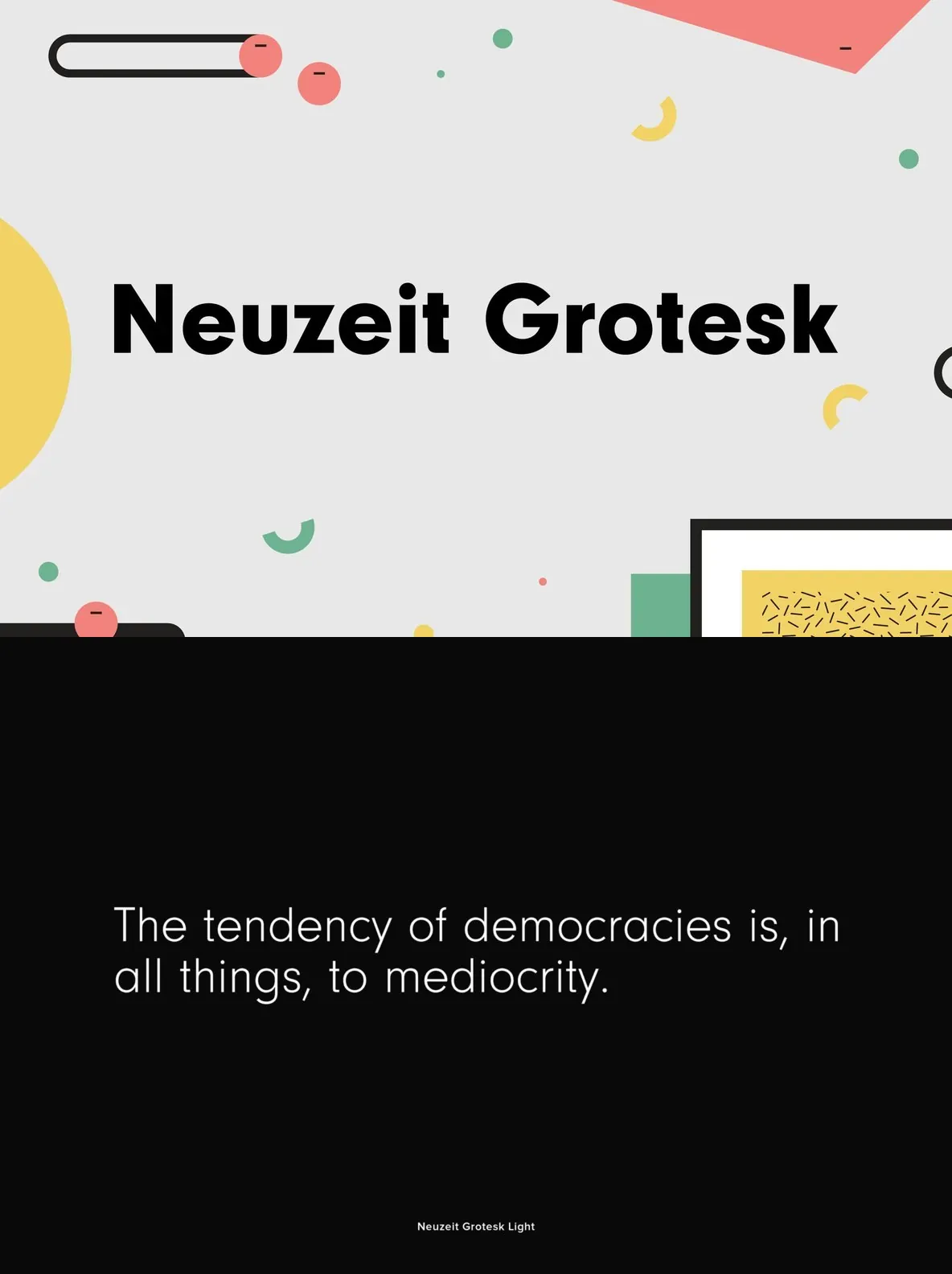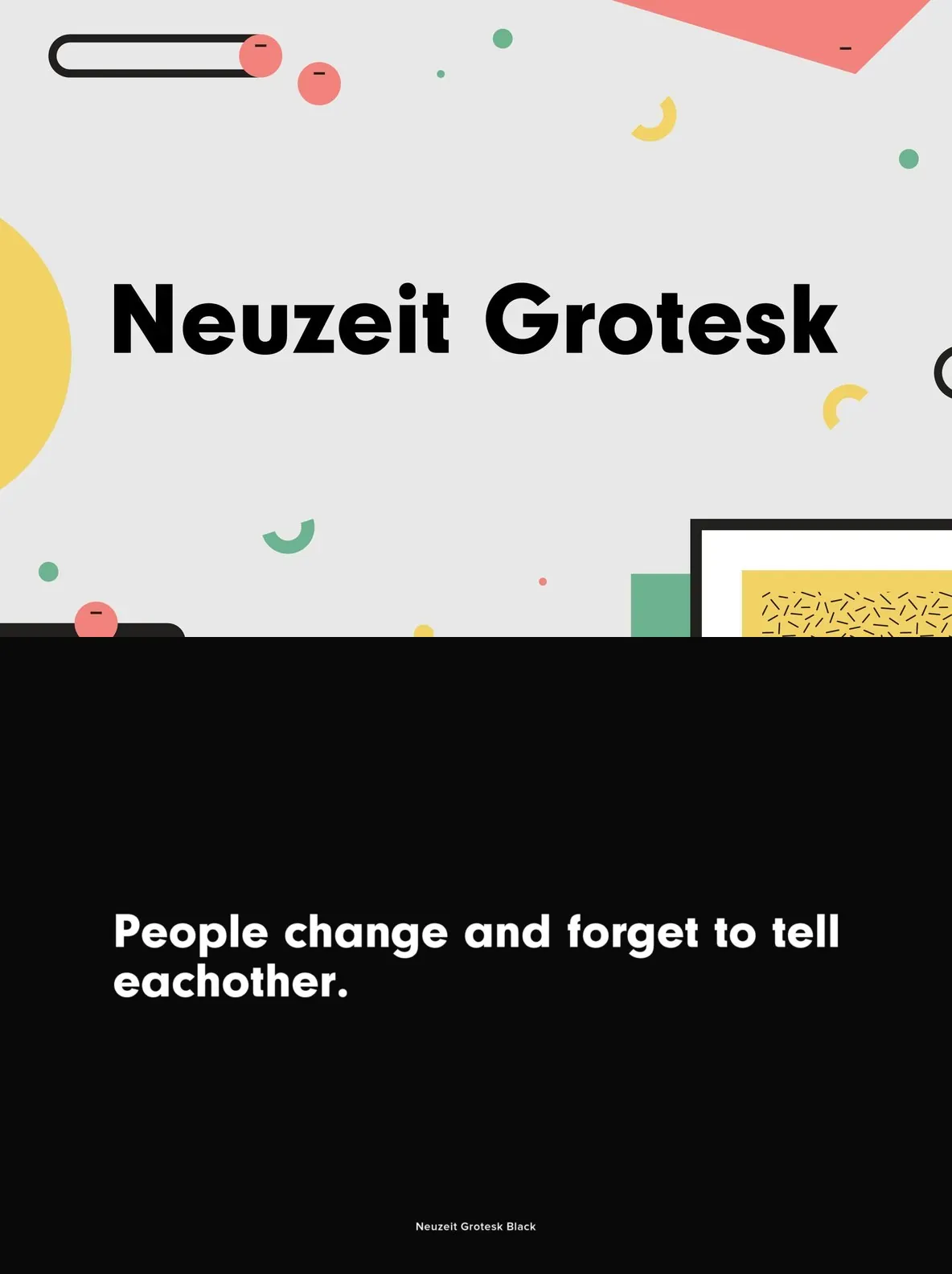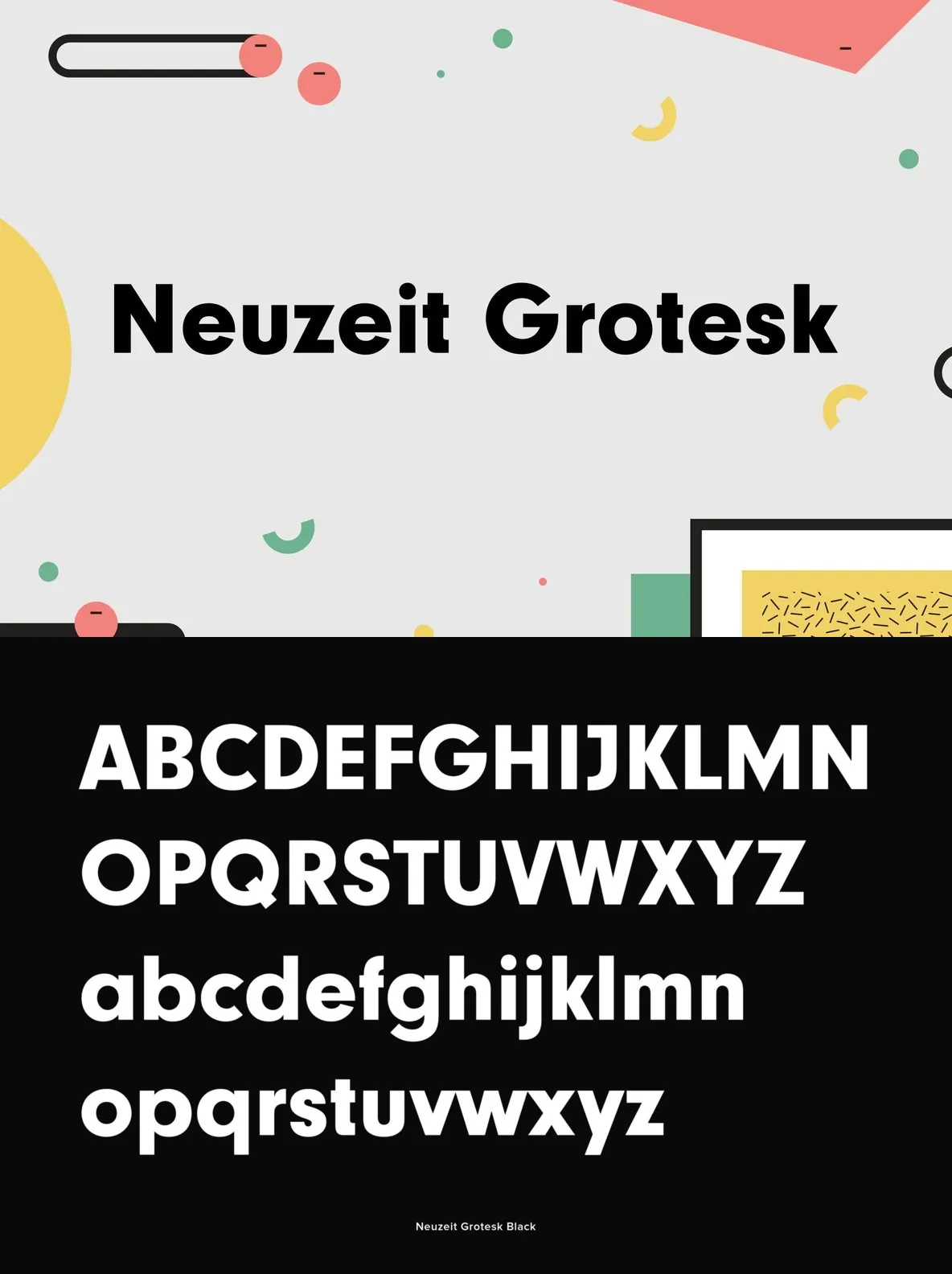
Neuzeit Grotesk Font
Neuzeit Grotesk: Timeless Geometric Sans-Serif
Neuzeit Grotesk offers a refined balance between clarity and clean geometry. Designed in 1932, its modest presence stands out for inspired typographic work. The linear form and precise shapes suit both body text and impactful headlines, delivering consistent legibility across sizes.
With its subtle character, Neuzeit Grotesk adapts well to contemporary layouts. Its geometric precision and unembellished forms create a grounded aesthetic favored by modern designers.
Key Features
Neutral style with timeless appeal
Geometric, linear construction for clarity
Versatile for headlines and body text
Consistent readability in various layouts